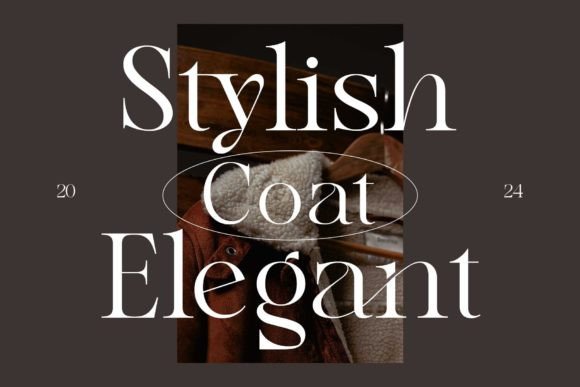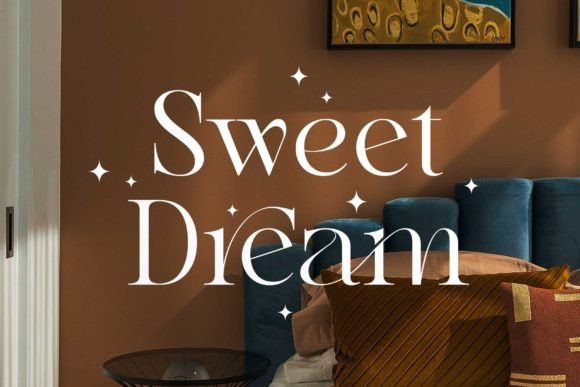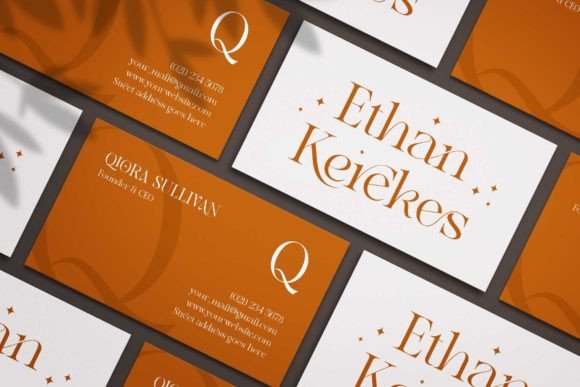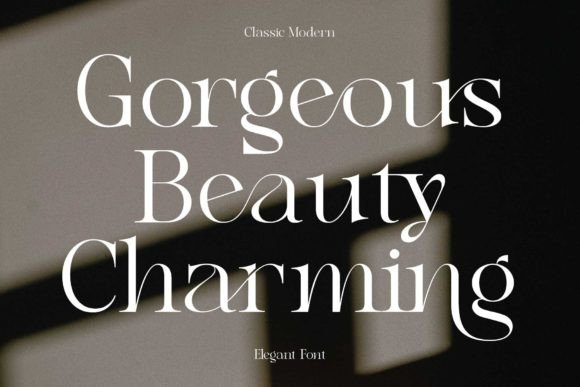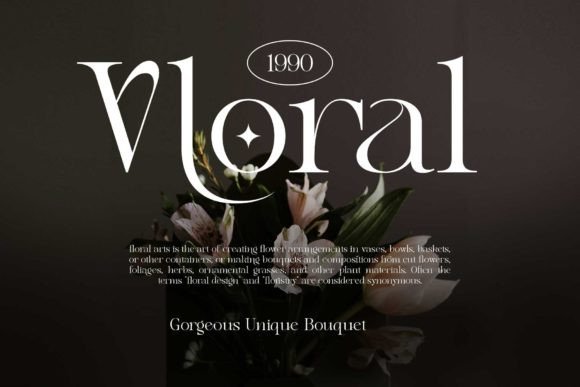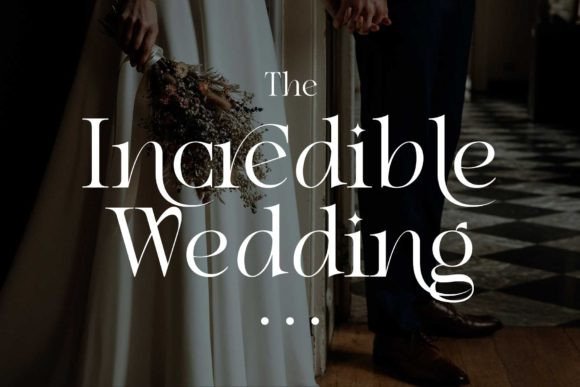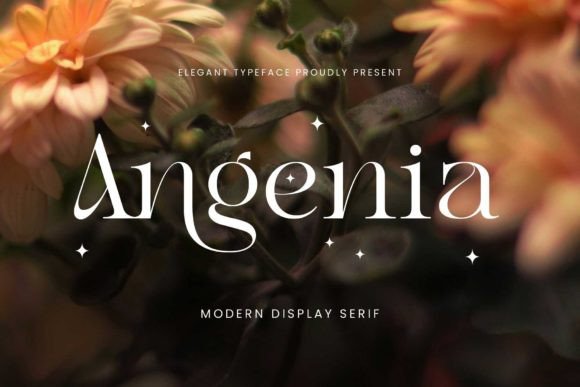
Discover the Elegance of Agenia Font: Elevate Your Designs with a Touch of Modern Sophistication
In the world of typography, the right font can make all the difference in transforming a design from ordinary to extraordinary. For those seeking a casual serif font that exudes a unique and modern style, Agenia Font is an exceptional choice. This beautifully crafted font is designed to add a touch of beauty to your designs, making it perfect for a wide range of applications, from fashion and weddings to editorial content and branding.
The Unique Features of Agenia Font
Agenia Font stands out with its slender, clean, and minimalist serif design. Its modern aesthetic makes it an ideal choice for designers looking to create visually appealing content that resonates with their audience. One of the key features that set Agenia apart is its rich collection of dozens of ligatures and alternate characters. These special characters allow for a high degree of customization, enabling designers to add a delightful touch to their work and ensure their creations stand out in a crowded digital landscape.
Whether you’re working on a fashion magazine, planning a wedding, designing cards, or developing a brand identity, Agenia Font proves to be a versatile companion. Its fashionable and elegant appearance makes it suitable for a variety of design projects, including:
• Fashion: Use Agenia to add a touch of sophistication to your fashion editorials, advertisements, or brand logos.
• Weddings: Create beautiful wedding invitations, programs, or decorations with Agenia’s elegant and romantic feel.
• Cards: From greeting cards to postcards, Agenia’s unique style ensures your cards are memorable.
• Editorial/Magazines: Enhance your magazine or editorial content with Agenia’s modern and clean design.
• Logos and Branding: Establish a strong brand identity with Agenia’s distinctive and professional appearance.
Seamless Integration and Pairing
Agenia’s slender form and versatile design allow for seamless integration into various elements of your design, including titles, sub-headings, or body text. Its clean and minimalist aesthetic makes it an excellent choice for pairing with other font styles, such as sans serif, cursive, or signature fonts. This versatility in pairing enables designers to create visually appealing and well-balanced designs that capture the essence of their brand or message.
Why Choose Agenia Font?
Choosing Agenia Font for your design projects comes with numerous benefits:
• Unique Style: Agenia offers a unique and modern style that sets it apart from traditional serif fonts.
• Customization: With its ligatures and alternate characters, Agenia provides a high level of customization to make your designs truly unique.
• Versatility: Suitable for a wide range of applications, Agenia is a versatile font that can be used across different design projects.
• Elegance: Its clean and minimalist design adds a touch of elegance and sophistication to any design.
Agenia Font is a beautifully designed casual serif font that brings a touch of modern sophistication to any design project. With its unique features, versatility, and elegant appearance, Agenia is an excellent choice for designers looking to elevate their work. Whether you’re creating content for fashion, weddings, editorial projects, or branding, Agenia Font is sure to make your designs stand out. Discover the beauty and elegance of Agenia and take your designs to the next level.